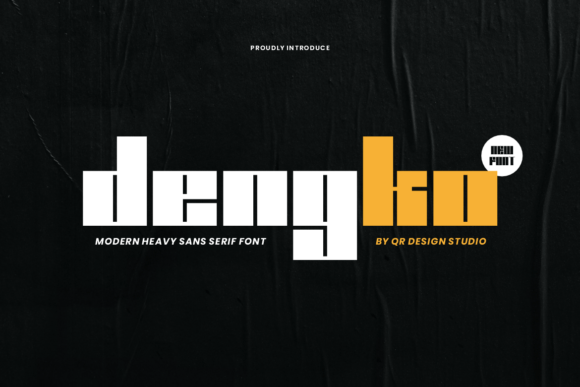
Dengko Font: Elevate Your Designs with a Bold and Assertive Sans Serif Font
In the world of typography, a font can make or break a design. A well-chosen font can elevate a creation from ordinary to extraordinary, while a poorly chosen one can detract from the overall impact. This is where Dengko Font comes in – a bold and assertive sans serif font that can add a touch of sophistication and elegance to any design.
What is Dengko Font?
Dengko Font is a sans serif font that exudes confidence and assertiveness. Its bold and clean lines make it perfect for designs that require a strong and modern look. Whether you’re working on a branding project, a website, or a print material, Dengko Font is an excellent choice.
Key Features of Dengko Font
- Bold and Assertive: Dengko Font is designed to make a statement. Its bold lines and assertive style make it perfect for designs that require a strong presence.
- Sans Serif: The font features a clean and minimalist sans serif design, making it easy to read and versatile for various design applications.
- Highly Legible: Dengko Font is optimized for readability, ensuring that your message is conveyed clearly and effectively.
- Modern and Sophisticated: The font’s modern design and sophisticated look make it perfect for designs that require a touch of elegance.
How to Use Dengko Font
Dengko Font is a versatile font that can be used in various design applications. Here are some ideas:
- Branding: Use Dengko Font as a logo font or for branding materials such as business cards, letterheads, and envelopes.
- Web Design: Dengko Font is perfect for website headers, titles, and buttons. Its bold and assertive style makes it an excellent choice for calls-to-action.
- Print Materials: Use Dengko Font for print materials such as brochures, flyers, posters, and banners.
- Advertising: Dengko Font is an excellent choice for advertising materials such as billboards, transit shelters, and magazine ads.
Benefits of Using Dengko Font
Using Dengko Font can bring numerous benefits to your designs. Here are some of the advantages of using this font:
- Elevate Your Designs: Dengko Font can add a touch of sophistication and elegance to your designs, elevating them from ordinary to extraordinary.
- Improve Readability: The font’s high legibility ensures that your message is conveyed clearly and effectively.
- Increase Versatility: Dengko Font is a versatile font that can be used in various design applications, making it an excellent addition to your font library.
- Stand Out from the Crowd: Dengko Font’s bold and assertive style makes it perfect for designs that require a strong presence, helping you stand out from the crowd.
Pairing Dengko Font with Other Fonts
Pairing Dengko Font with other fonts can create a unique and visually appealing design. Here are some font pairing suggestions:
- Open Sans: Pair Dengko Font with Open Sans for a modern and clean look.
- Lato: Combine Dengko Font with Lato for a sophisticated and elegant design.
- Merriweather: Pair Dengko Font with Merriweather for a classic and timeless look.
In conclusion, Dengko Font is a bold and assertive sans serif font that can elevate any design. Its modern and sophisticated look, high legibility, and versatility make it an excellent addition to your font library. Whether you’re working on a branding project, a website, or a print material, Dengko Font is an excellent choice.